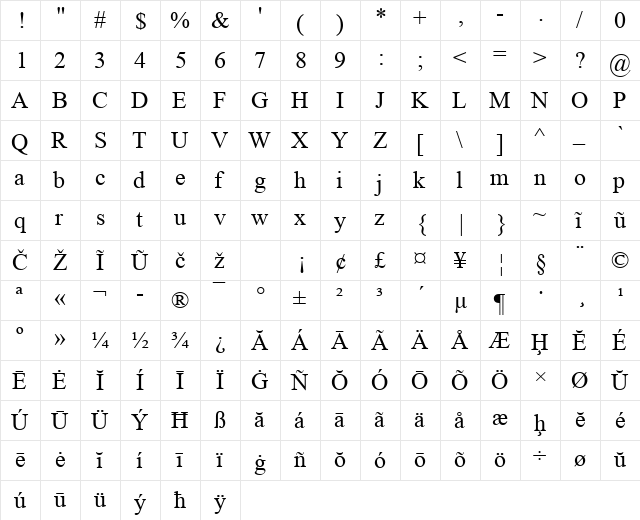
Lingua Latina Regular
Design Context for Lingua Latina Typeface
Lingua Latina is a composed and adaptable typeface that performs quietly and consistently across a wide range of design contexts.